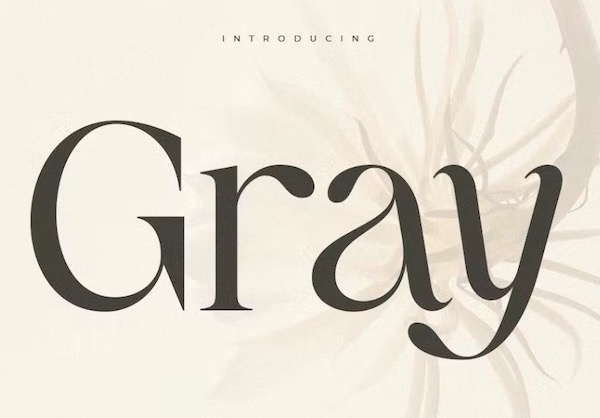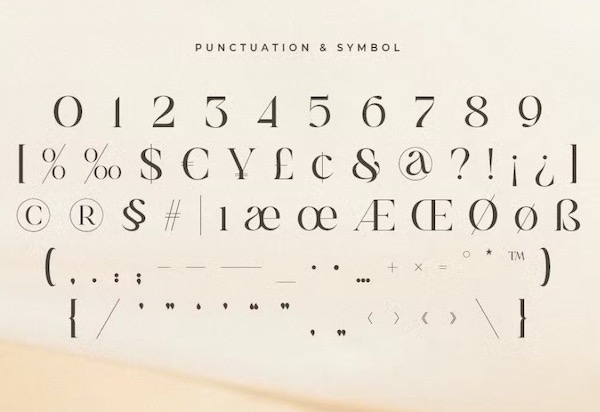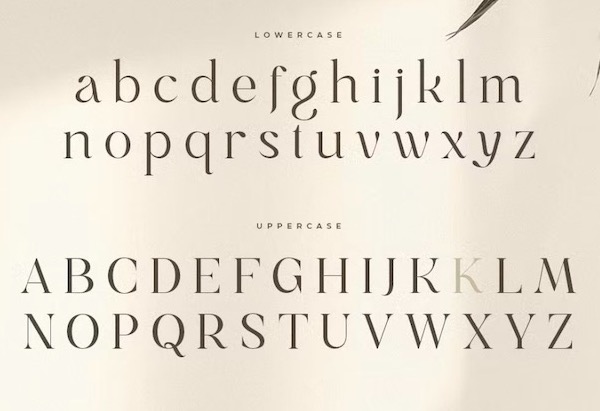
Gray is an elegant and Modern Classy Luxury serif Font that we created especially for Luxury and Fashion branding needs, with extra characters alternating in unique shapes that will be ready to add value to your brand. It so nice to leverage designer or product owner that need solutions to make their design look more classy and modern. And specially for this font, We prepared any alternate characters to help you create unlimited variations for your creative needs.
Gray Serif Font